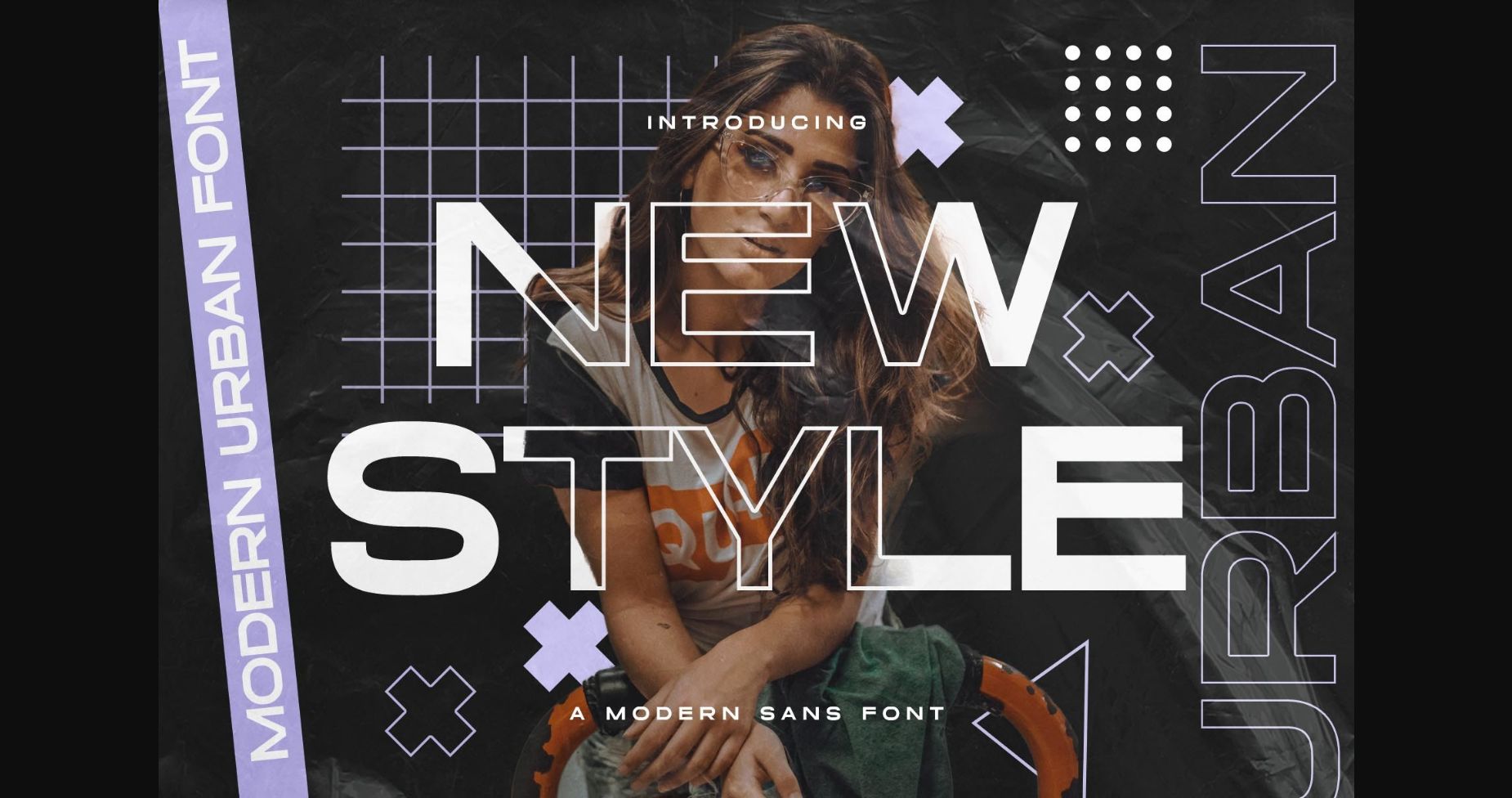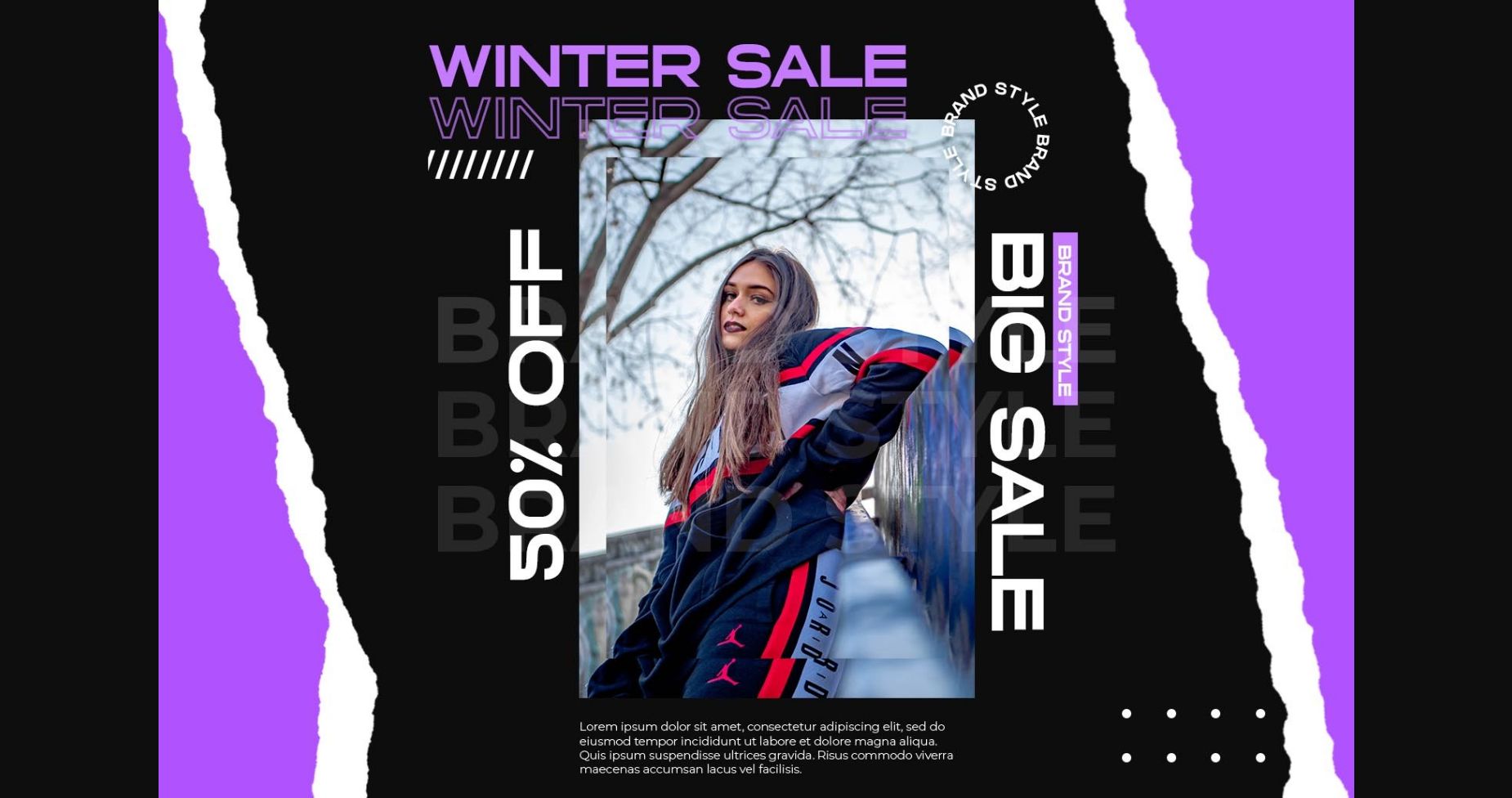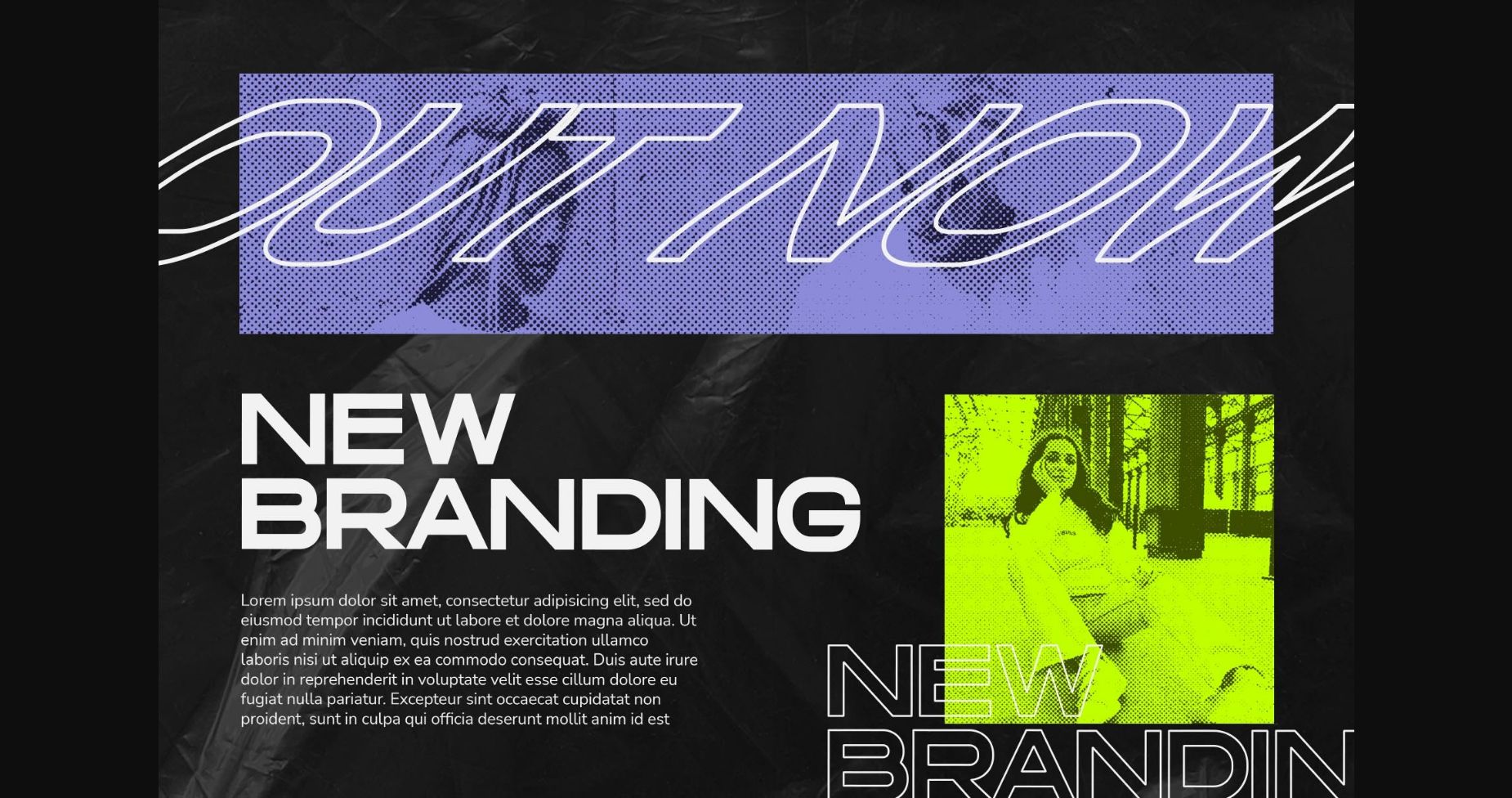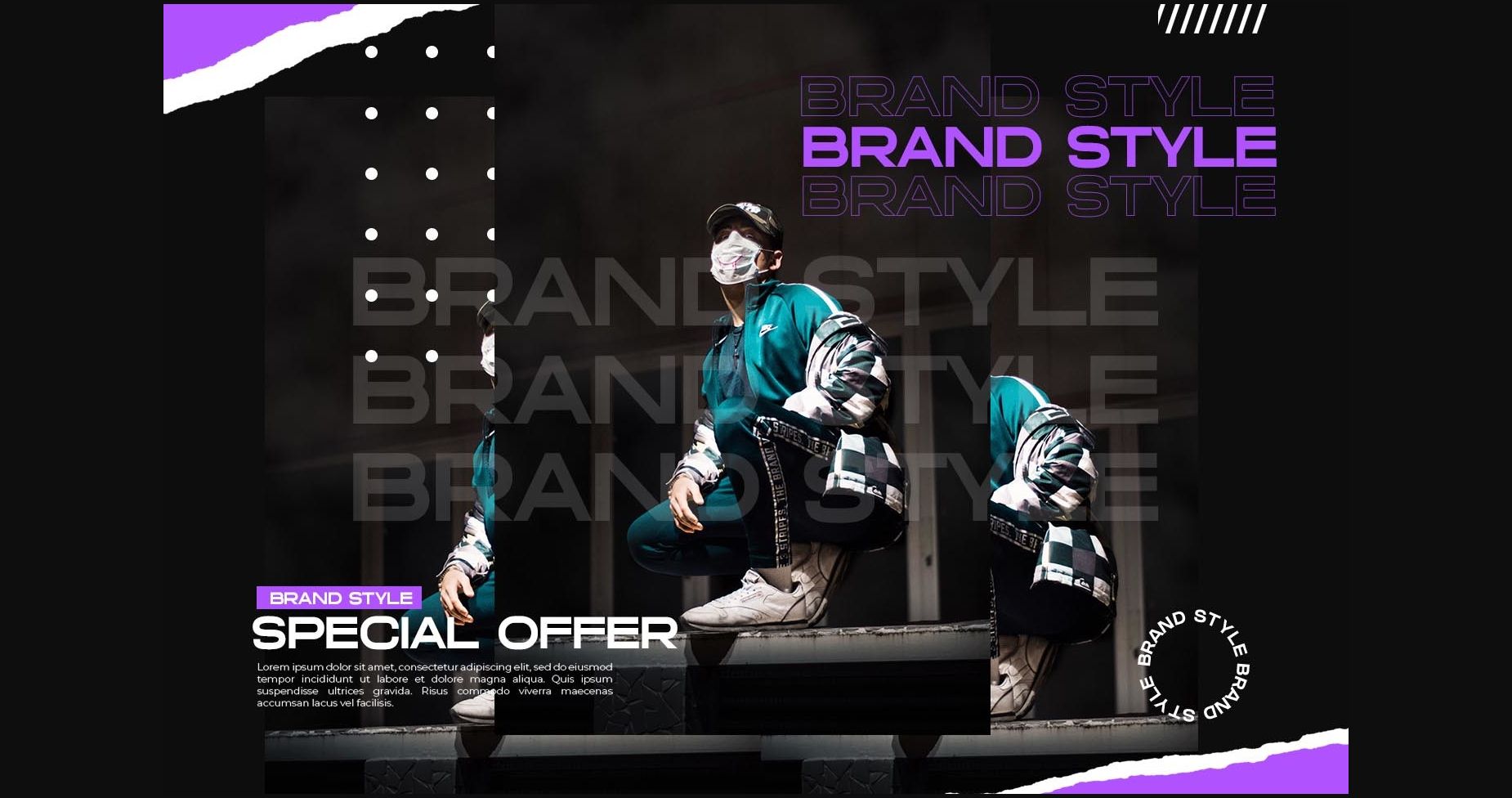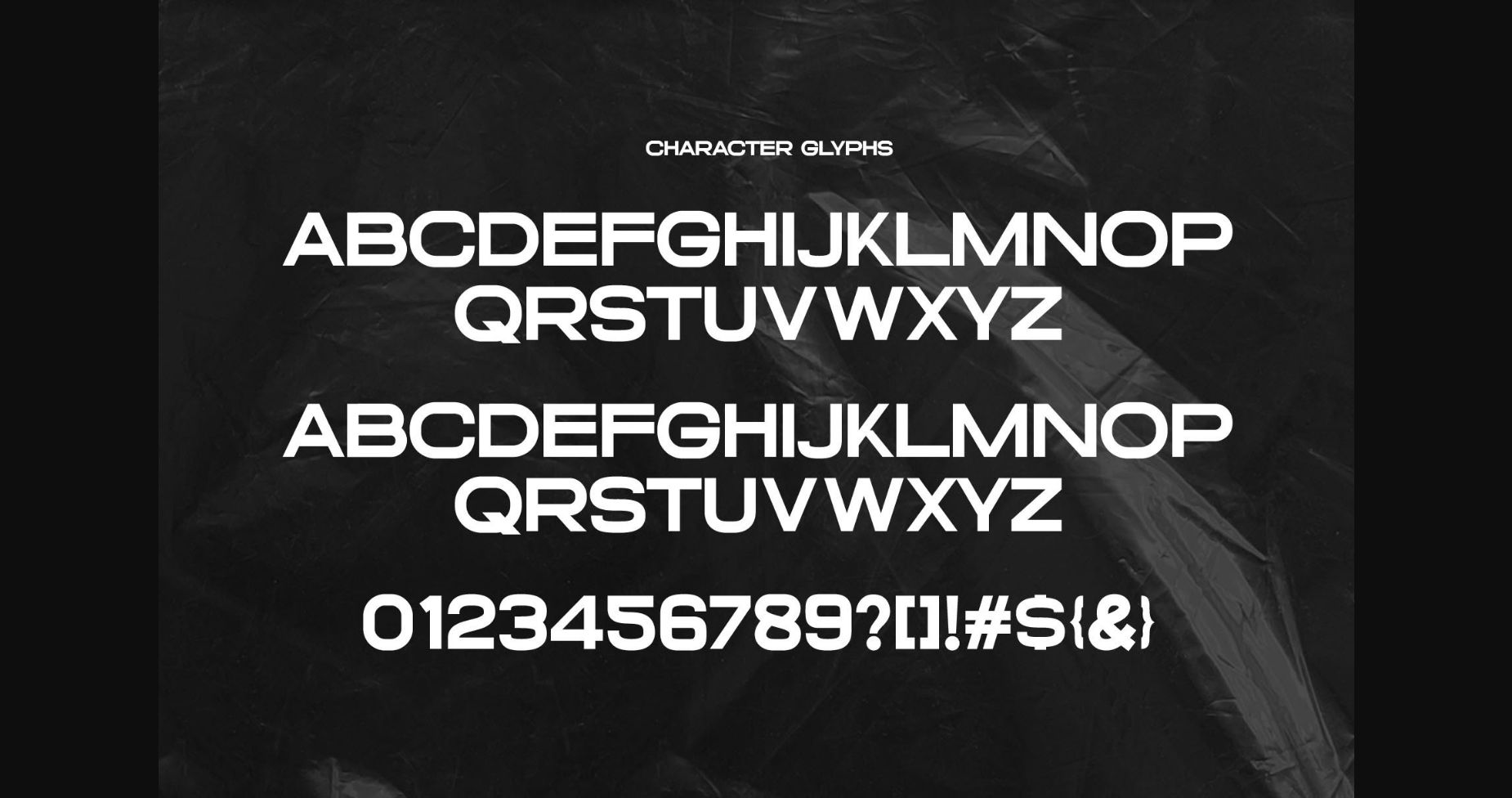
About New Style Font
New style is an electric and eye-catching sans serif font that has sleek lines and smooth curves, giving it a modern and stylish look. Its sharp and bold appearance will stand out in any design and make a statement. Perfect for headlines, logos, and more!